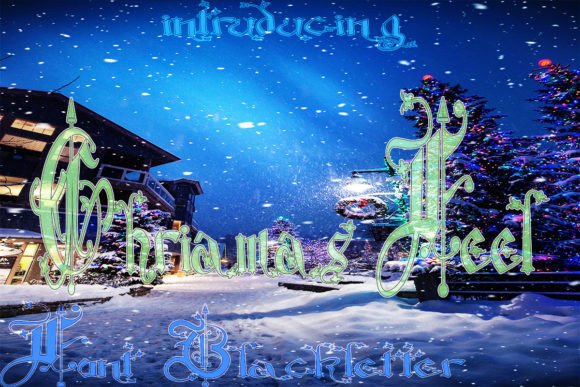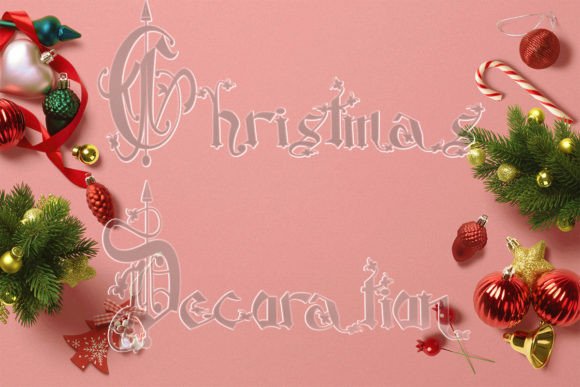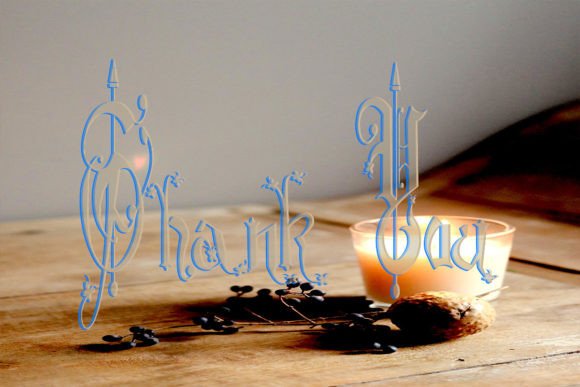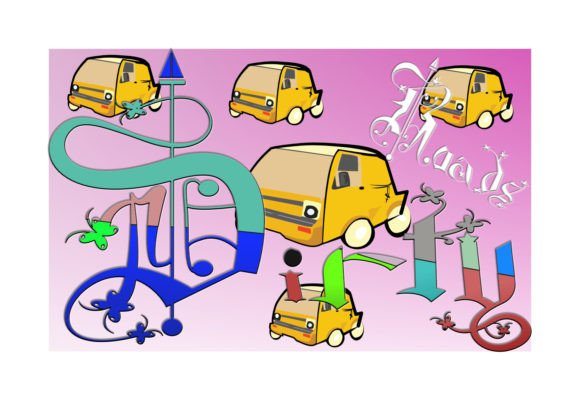
Introducing Christmas Background Font: The Ultimate Blackletter Style for Your Holiday Projects
Are you looking for a unique and stylish font to elevate your holiday projects? Look no further than Christmas Background Font, a stunning blackletter font that is perfect for adding a touch of festive flair to your designs. With its latest style letters and handwriting-inspired aesthetic, this font is ideal for a wide range of applications, from wall displays and wedding invitations to social media posts, logos, advertisements, product packaging, and more.
What is Christmas Background Font?
Christmas Background Font is a distinctive blackletter font that features intricate and ornate lettering, reminiscent of traditional holiday scripts. Its unique style is characterized by dramatic flourishes, curved lines, and a touch of vintage charm, making it perfect for designers and crafters who want to add a touch of elegance and sophistication to their work.
Key Features of Christmas Background Font
- Unique Blackletter Style: Christmas Background Font boasts a one-of-a-kind blackletter style that is sure to make your designs stand out from the crowd.
- Latest Style Letters: The font features modern and trendy letters that are perfect for creating fresh and eye-catching designs.
- Handwriting-Inspired Aesthetic: The font’s handwriting-inspired aesthetic adds a touch of personality and whimsy to your designs, making them more engaging and relatable.
- Versatile and Adaptable: Christmas Background Font is perfect for a wide range of applications, from digital designs to print materials.
Uses for Christmas Background Font
Christmas Background Font is an incredibly versatile font that can be used for a variety of projects, including:
- Wall Displays: Create stunning wall displays with Christmas Background Font, perfect for holiday decorations, events, or exhibitions.
- Wedding Invitations: Add a touch of elegance and sophistication to your wedding invitations with this beautiful blackletter font.
- Social Media Posts: Elevate your social media posts with Christmas Background Font, perfect for creating eye-catching graphics, promotions, or announcements.
- Logos and Branding: Use Christmas Background Font to create unique and memorable logos, perfect for businesses, events, or products.
- Advertisements: Create attention-grabbing advertisements with Christmas Background Font, ideal for holiday promotions, sales, or events.
- Product Packaging: Add a touch of festive flair to your product packaging with Christmas Background Font, perfect for holiday-themed products or limited-edition releases.
- Product Designs: Use Christmas Background Font to create stunning product designs, from labels to watermarks, that showcase your brand’s personality and style.
- Invitations and Stationery: Create beautiful invitations, stationery, and greeting cards with Christmas Background Font, perfect for personal or professional use.
Tips for Using Christmas Background Font
To get the most out of Christmas Background Font, here are a few tips to keep in mind:
- Experiment with Colors: Try pairing Christmas Background Font with different colors, textures, and patterns to create unique and eye-catching designs.
- Play with Size and Layout: Experiment with different font sizes and layouts to create visual interest and hierarchy in your designs.
- Mix and Match with Other Fonts: Combine Christmas Background Font with other fonts to create a unique and stylish typography.
| Font Name | Christmas Background Font |
| Author | santoso studio |
Christmas Background Font is a unique and stylish blackletter font that is perfect for designers and crafters looking to add a touch of festive flair to their holiday projects. With its latest style letters, handwriting-inspired aesthetic, and versatile adaptability, this font is sure to become a go-to choice for a wide range of applications. So why wait? Download Christmas Background Font today and start creating stunning holiday designs that will leave a lasting impression!